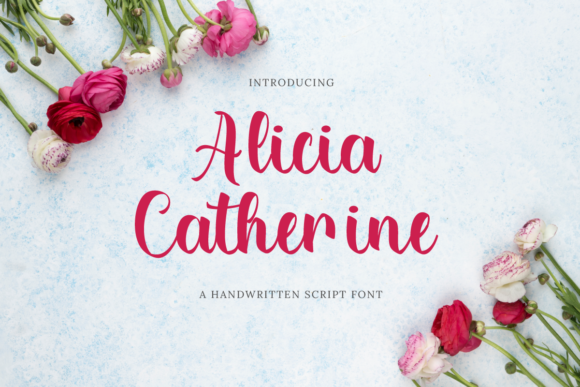
Discover the Timeless Elegance of Alicia Catherine Font
Have you ever been stuck on a design project, staring at a blank canvas, and suddenly a spark of inspiration strikes? For many designers, this moment is the difference between a good design and a great one. For me, it’s often triggered by discovering a new font that sets the tone for an entire project. And that’s exactly what happens when you meet Alicia Catherine Font – a lovely, elegant, and unique script font that will leave you smitten.
Alicia Catherine Font is a versatile tool that can be used to create stunning wedding invitations, beautiful stationery art, eye-catching social media posts, and much more. Its ravishing style makes it a valuable addition to any designer’s toolkit, offering endless possibilities for creative expression. Whether you’re a seasoned pro or just starting out, Alicia Catherine Font is sure to become your go-to choice for any project that demands a touch of sophistication and whimsy.
Alicia Catherine Font Key Features
- Font Family: Alicia Catherine is a script font designed for elegant and sophisticated typography.
- Font Styles: The font family includes various styles, including Regular, Italic, Bold, and Bold Italic, to cater to diverse design needs.
- Unique Characteristics: The font’s unique characteristics include its flowing connections, elegant swashes, and refined details, making it ideal for creating visually appealing and sophisticated designs.
Alicia Catherine Font Review
Overall, I think Alicia Catherine Font is a beautiful and elegant script font. It’s perfect for creating a sophisticated and feminine look in any design project.
- The fluidity of the font is exceptional, making it a joy to read and write with.
- The subtle flourishes and swashes add a touch of whimsy and personality to the font.
- The font’s versatility makes it suitable for a wide range of applications, from branding and packaging to editorial and advertising design.
- The font may not be ideal for use in body text, as the characters can be quite ornate and may not be easily legible at small font sizes.
- The font’s high level of detail can make it prone to pixelation at low resolutions, which may be a concern for web designers.
- The font may not be suitable for use in environments where a more conservative or traditional aesthetic is desired.
Alicia Catherine Font is a beautiful and sophisticated script font that is perfect for designers looking to add a touch of elegance and sophistication to their projects. While it may have some limitations, I think it’s well worth considering for any design project that requires a high level of style and sophistication.
Getting the Most Out of Alicia Catherine
For optimal results, use Alicia Catherine in designs with a vintage or feminine theme. This font pairs well with distressed textures, floral patterns, and soft colors. Experiment with different font sizes and styles to create a unique look.
Alicia Catherine is ideal for:
- Marketing materials and social media graphics
- Personalized gifts and cards